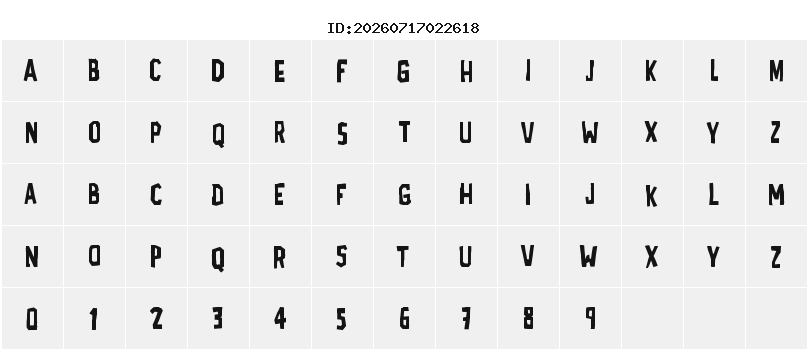
• Font Name: AD Polaquita
• Designer: Alex Dukal
• Manufacturer: Dukal Type
About AD Polaquita.ttf
AD Polaquita.ttf is a modern, elegant sans-serif font designed for ultimate readability and visual harmony. Perfect for branding, headlines, web design, and print materials.